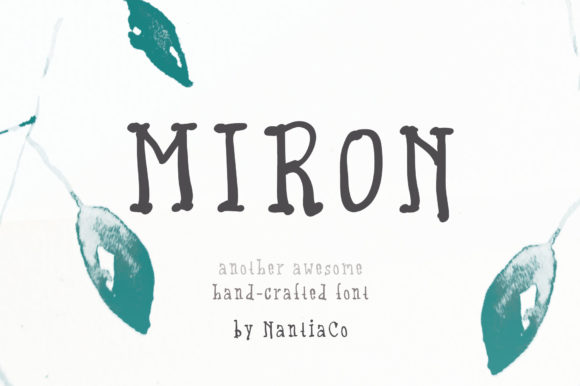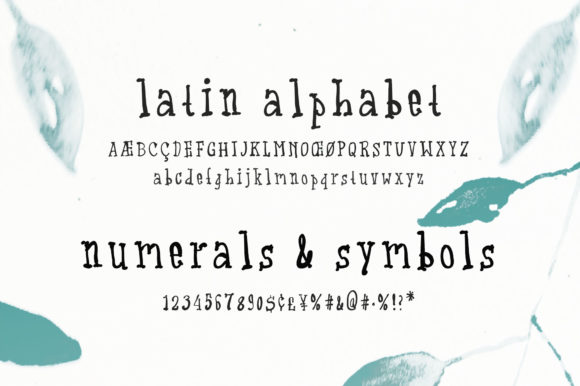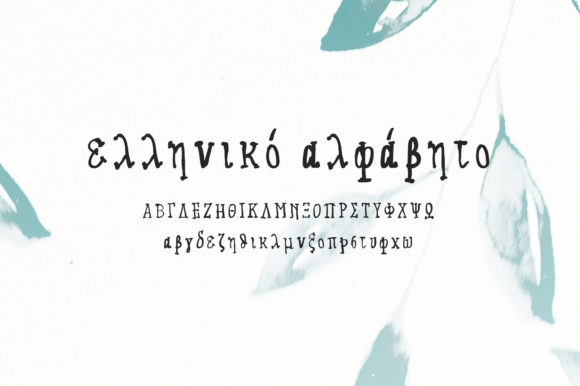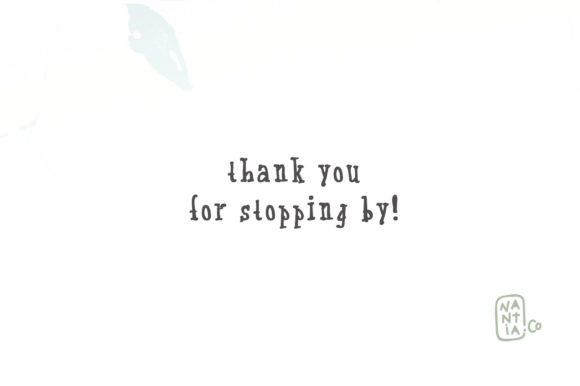
Miron Font
About Miron Font
Miron is a 100% hand-crafted typeface capable of achieving a childish handwritten feeling. This font has a really nice flow and is perfect for a variety of design projects.